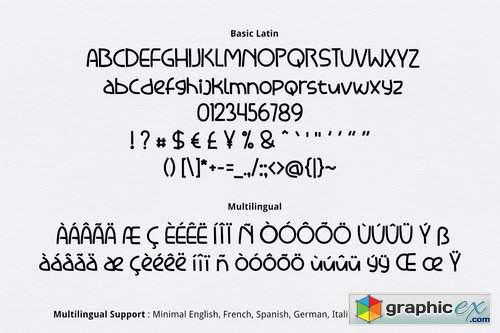
Tropical Lemon Font
Tropical Lemon Font is lovely cute multipurpose handmade font, suitable for many project children book, quotes, logo , heading , title etc.